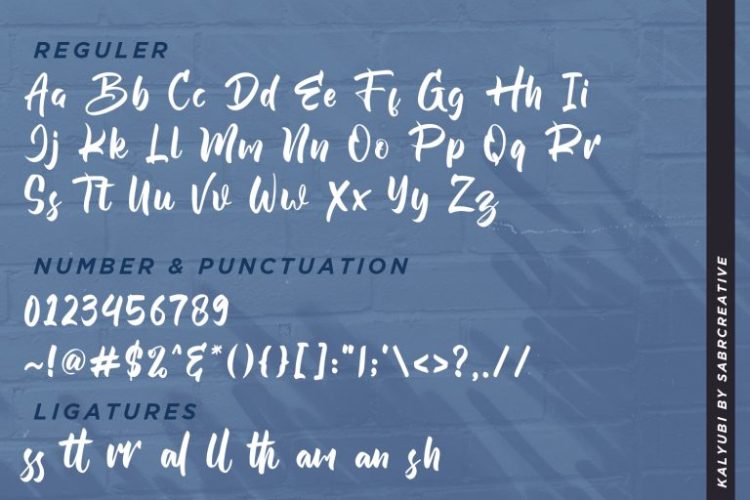
Kalyubi
Kalyubi Font with a bold script style and the unique character of each letter, Kalyubi gives the impression of strong, elegant. It is suitable for a variety of your projects that want to display the impression of strong, clean, elegant.
This font is perfectly made to be applied especially in logos, and the various other formal forms such as invitations, labels, logos, magazines, books, greeting/wedding cards, packaging, fashion, makeup, stationery, novels, etc.
With multilingual support, this font is also suitable to be combined with various design styles from various countries.
Kalyubi Font Features :
• Uppercase & Lowercase
• Number & Punctuation
• Multilingual